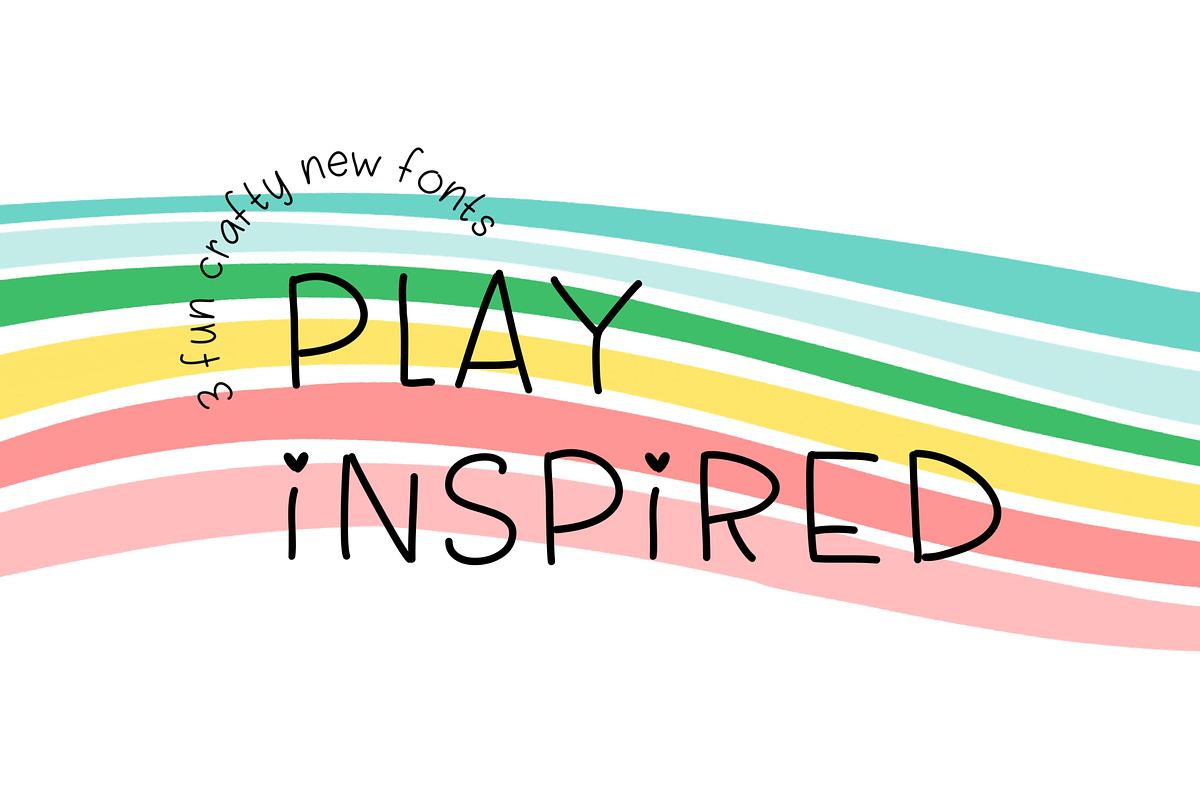
Please note, to use this font for commercial purposes, you must purchase the full version. Play Inspired Fonts & Backgrounds is a creative and versatile font collection that comes with a set of vibrant backgrounds to bring energy and excitement to your designs. With a combination of playful, bold fonts and dynamic, colorful backgrounds, this package is perfect for creating fun logos, posters, event invitations, and social media graphics. Whether you're working on a creative brand, a children's project, or a lively event promotion, Play Inspired adds a unique touch to your work. Test it out and enjoy free download access for personal use. Experience the playful creativity of Play Inspired Fonts & Backgrounds Free Download before purchasing the commercial license. Add a fun and vibrant touch to your designs with Play Inspired.